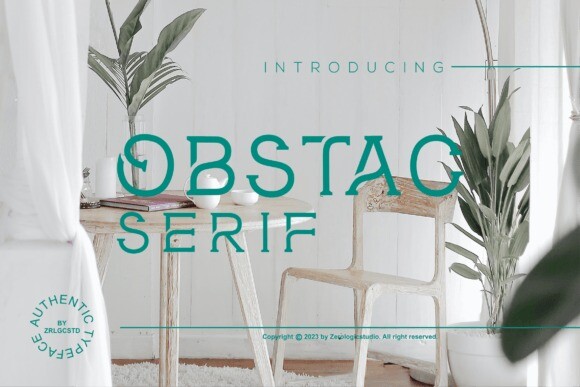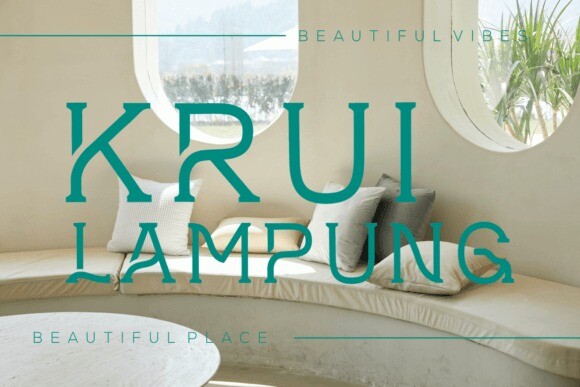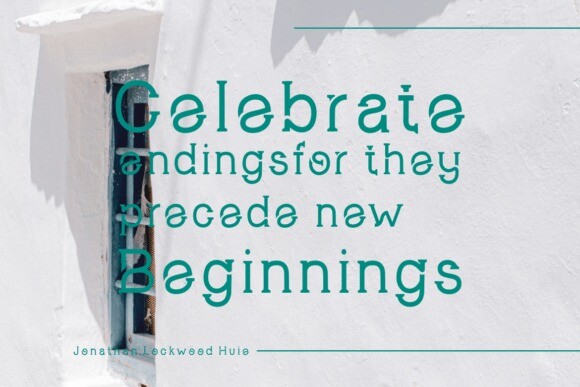
Obstac Font
Obstac is a modern serif font designed with an original touch for your needs.
This unique font is strong and sharp, perfect for titles, typography, posters, magazines, brochures, packaging, websites, and more. It will make your designs much cooler!